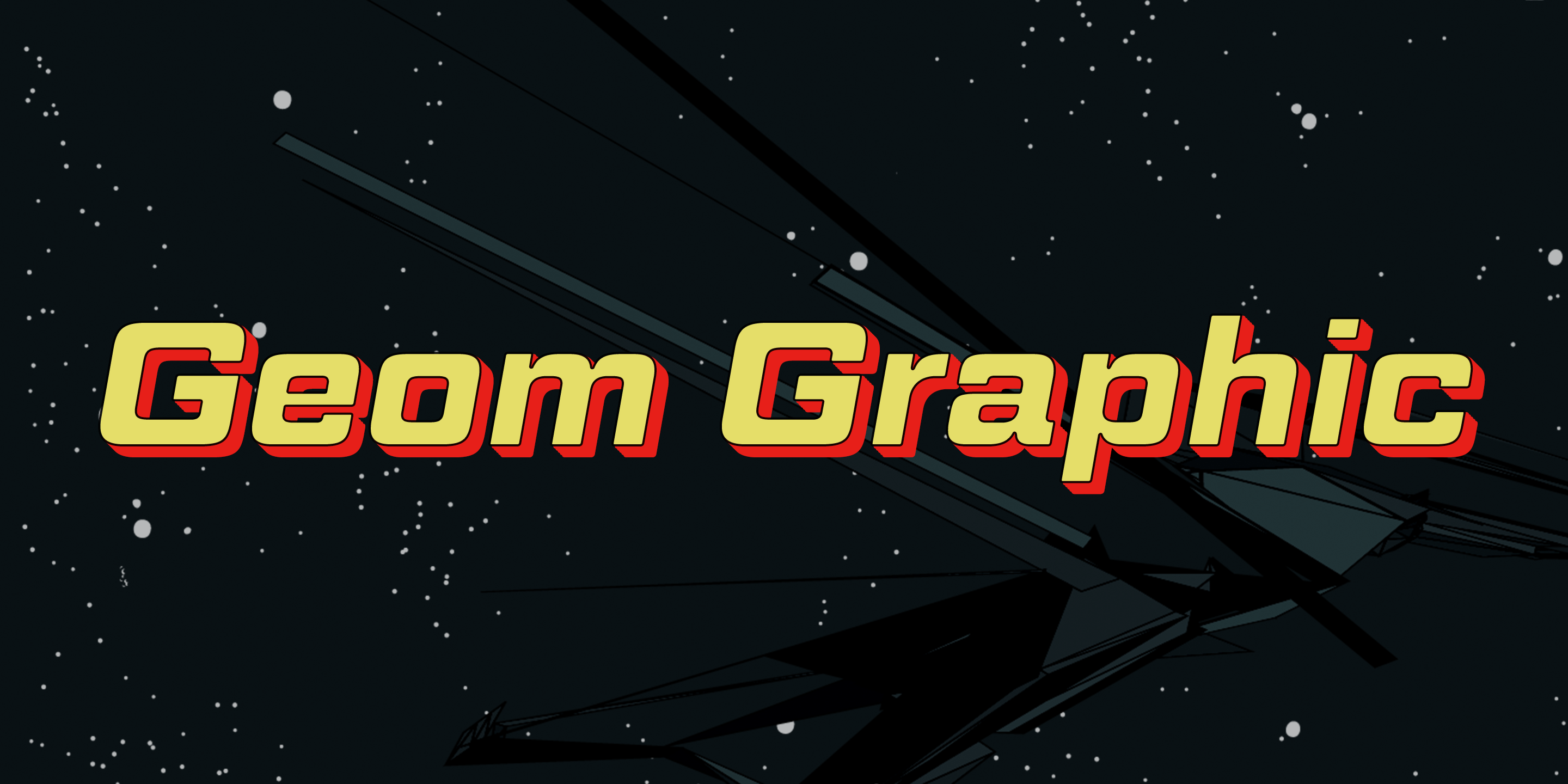
The Geom Graphic Font is perfect for modern geometric design projects including architectural presentations, graphic design portfolios, contemporary art exhibitions, minimalist brand identities, mathematical publications, engineering documentation, geometric pattern designs, and avant-garde visual communications. This precise typeface brings mathematical sophistication and geometric clarity to any design project requiring systematic, structured typography with modernist design principles.
What makes Geom Graphic Font so exciting is its pure embodiment of geometric design principles with mathematically precise letterforms that capture the essence of systematic visual organization and modernist aesthetic philosophy. The letters feature strict geometric construction with angular precision that creates an immediate sense of structural clarity and mathematical order. This distinctive geometric character makes it perfect for projects that want to communicate precision, systematic thinking, and the compelling appeal of pure geometric design and mathematical beauty.
The Geom Graphic Font family typically includes multiple weights from light to bold, complete with geometric italic variations and mathematical symbol sets. Many versions feature geometric ornaments, architectural symbols, and systematic design elements that enhance its authenticity for design and mathematical applications.
Whether you're designing for architectural firms, design studios, or mathematical institutions, Geom Graphic Font Free Download offers the perfect solution for projects that need to convey geometric precision and systematic design excellence. This font transforms standard text into structured designs that immediately communicate mathematical sophistication, geometric clarity, and the pure beauty of systematic visual organization to audiences appreciating modernist design principles and mathematical aesthetic excellence.